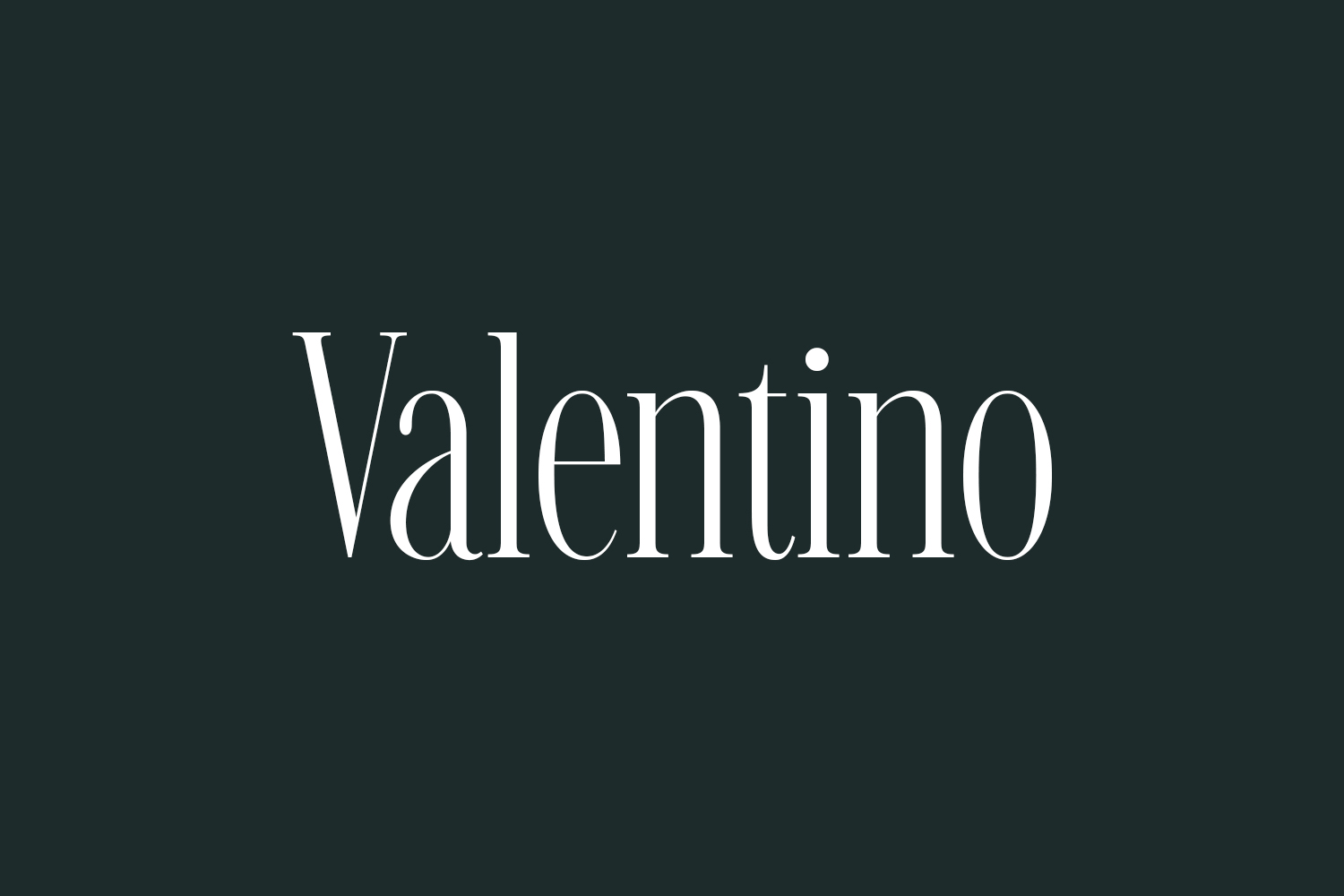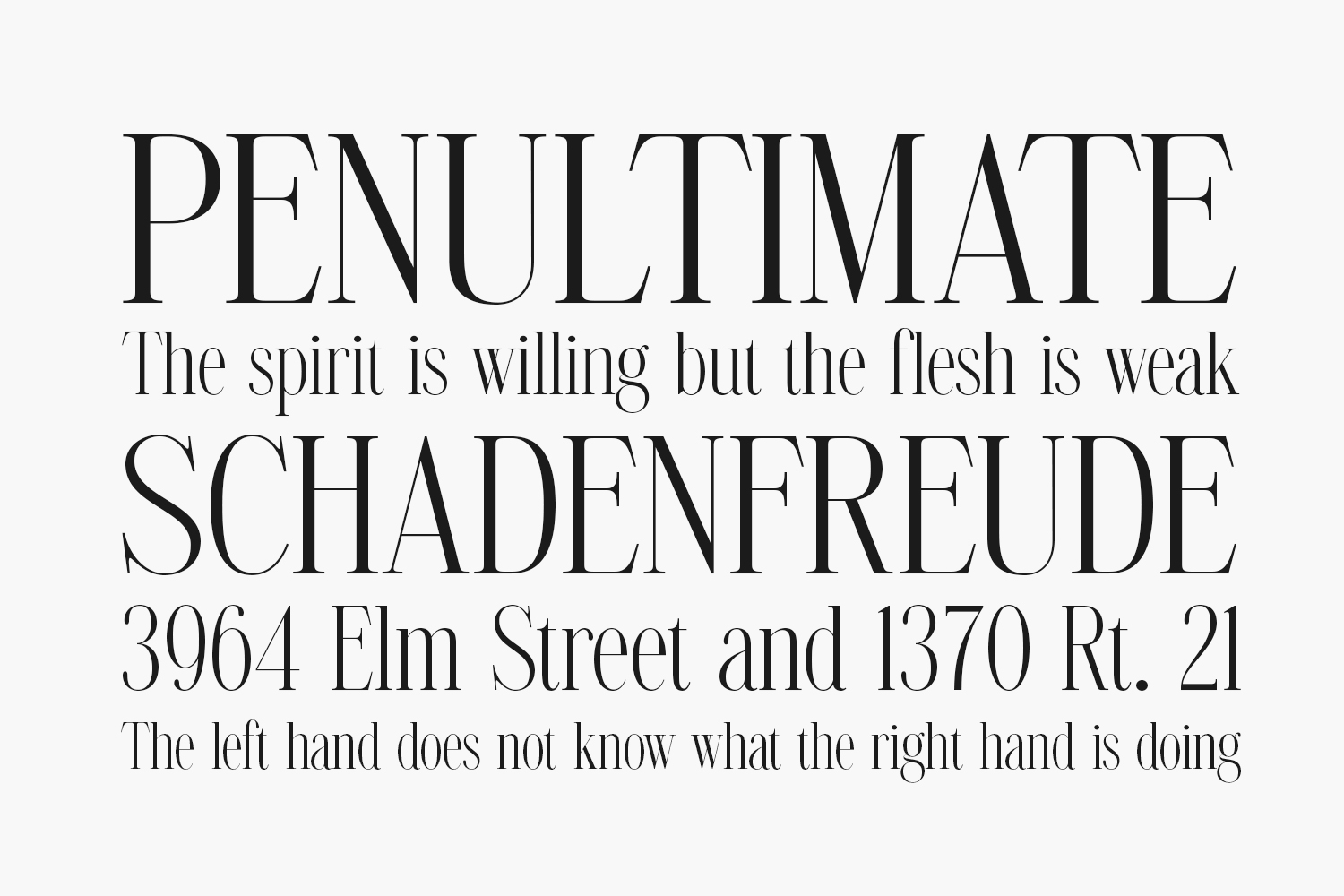
Valentino Free Font Family is classic and timeless, exuding a sense of elegance and refinement. Its traditional serif design gives it a stately and dignified look, making it perfect for creating elegant and sophisticated design projects. The font’s elegant lines and curves, along with its serifs, convey a sense of history and heritage, inspiring feelings of grandeur and prestige. Its classic design gives it a touch of nostalgia, making it perfect for projects that require a touch of timeless elegance and traditional look. Valentino Free Font Family is the perfect choice for projects that require a touch of refinement and class.